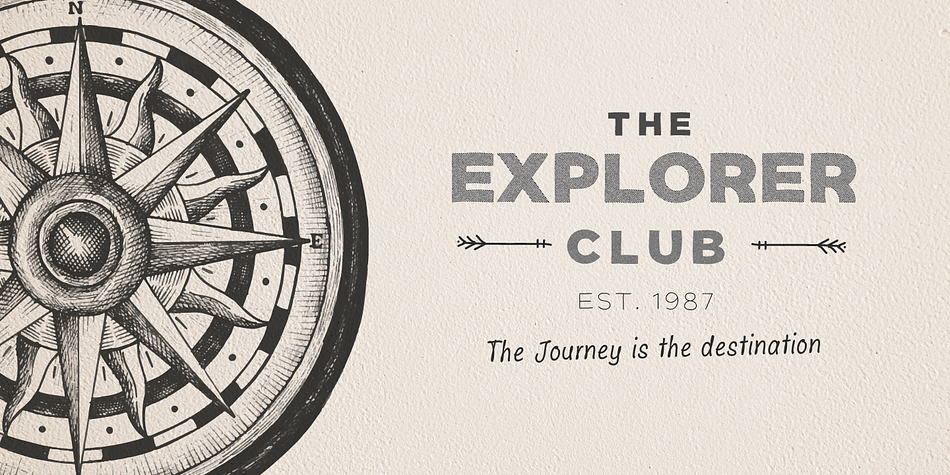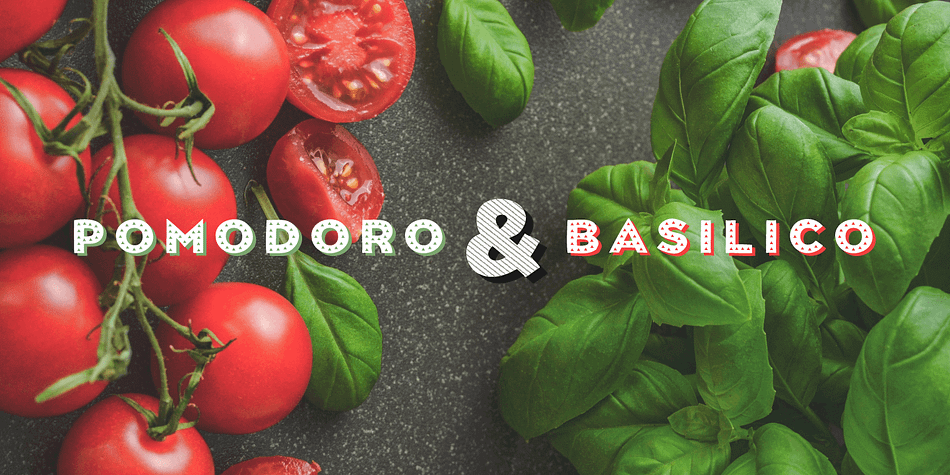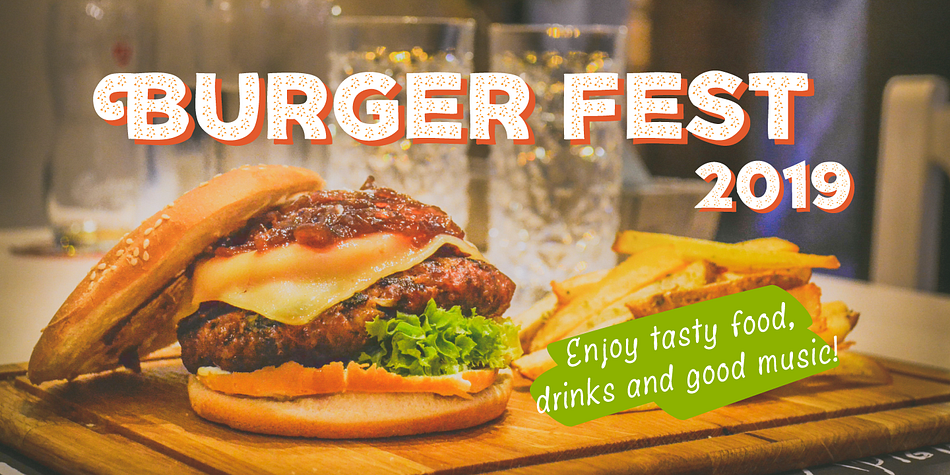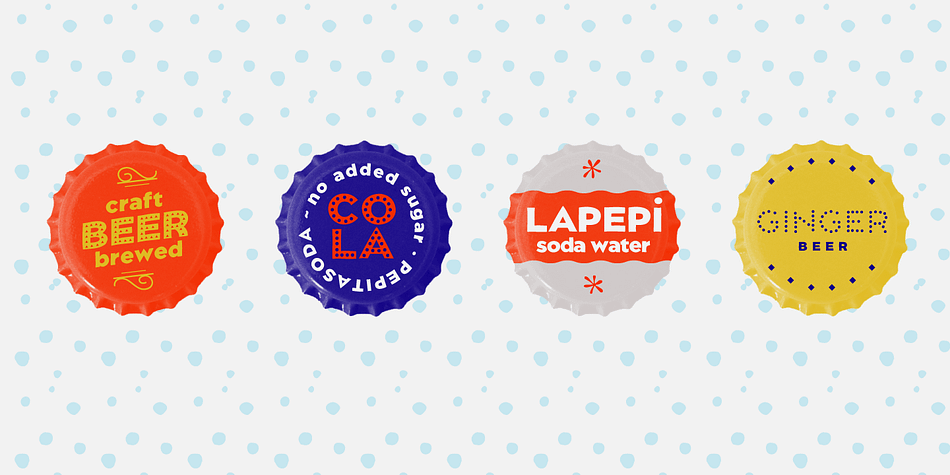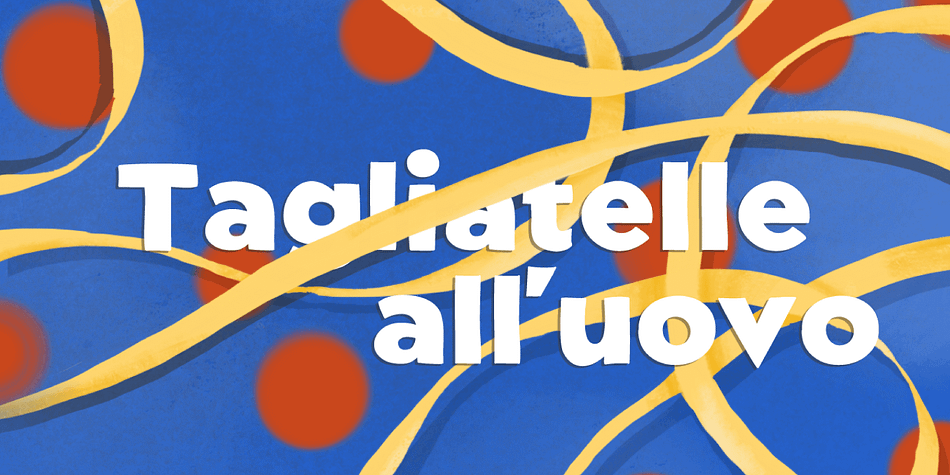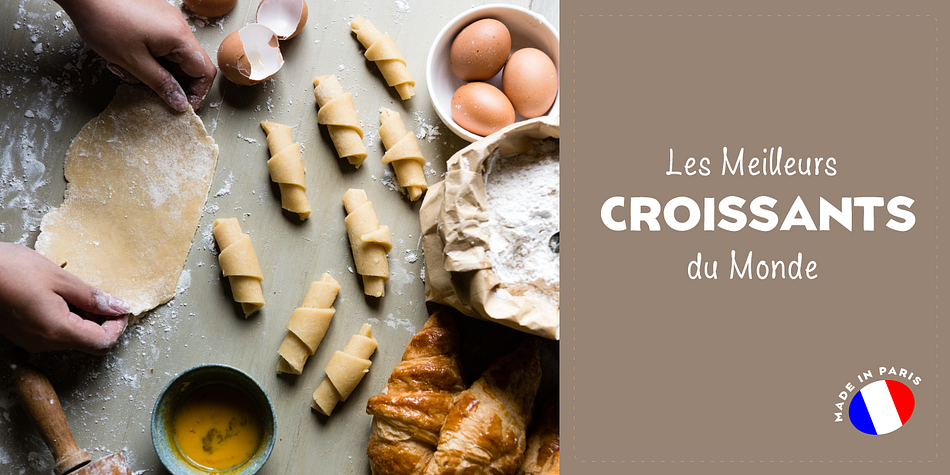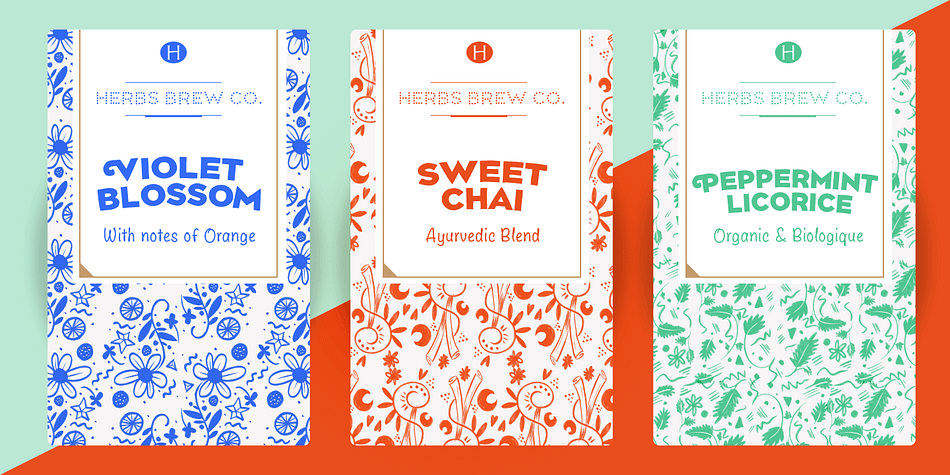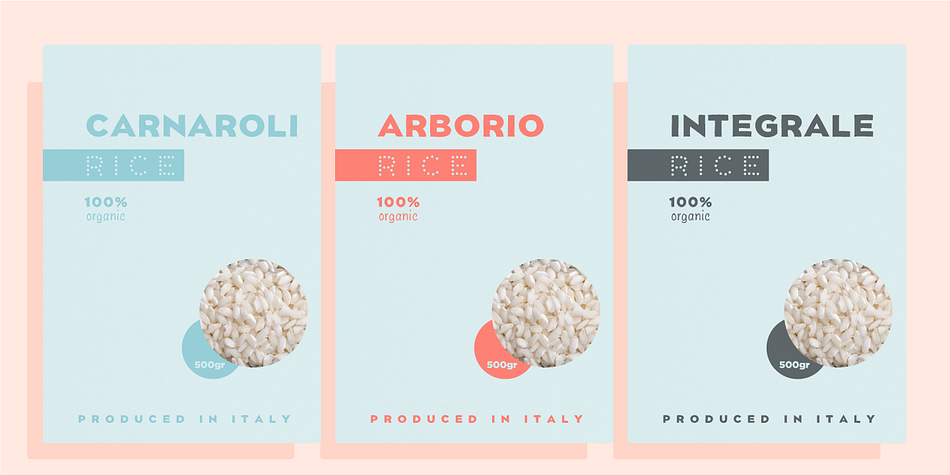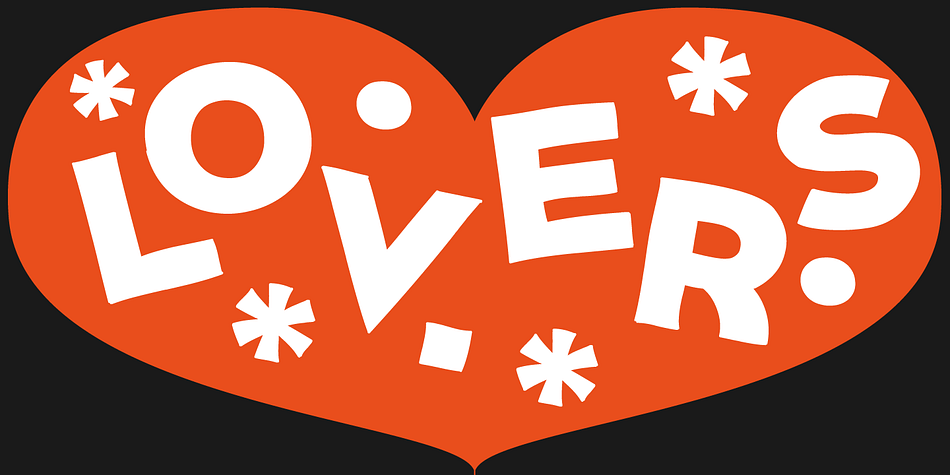
Designed by Giuseppe Salerno and Paco González, Dolcissimo is a multiple classification font family. This typeface has twenty-eight styles and was published by Resistenza.es.
Dolcissimo is a sans serif typeface with a geometric skeleton that has been built drawn by hand which makes it a friendly typeface.
This font has more than 25 decorative styles, that can be overlapped, because Dolcissimo is a layered font.